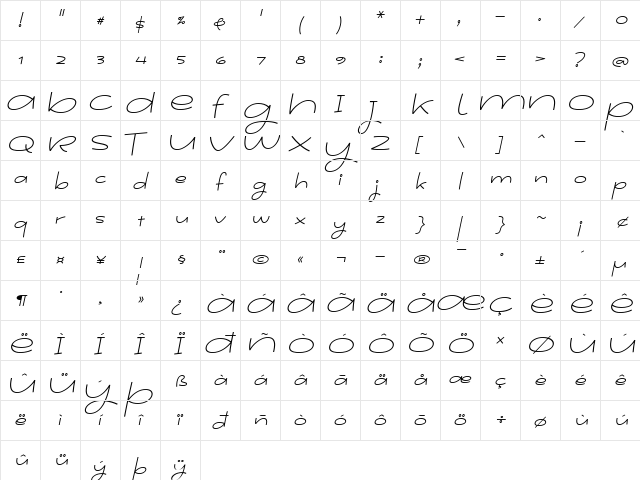
Youthing October Fourteen Italic
Design Context for Youthing October Fourteen Typeface
Youthing October Fourteen is a composed and adaptable typeface that performs quietly and consistently across a wide range of design contexts. The dynamic lean of this cut emphasises speed and emphasis in any layout. The delicate stroke weight brings airiness and refinement to layouts.
Pro Tip: Use Youthing October Fourteen for emphasis, pull quotes, and subheadings where its slanted energy can add rhythm to the layout.